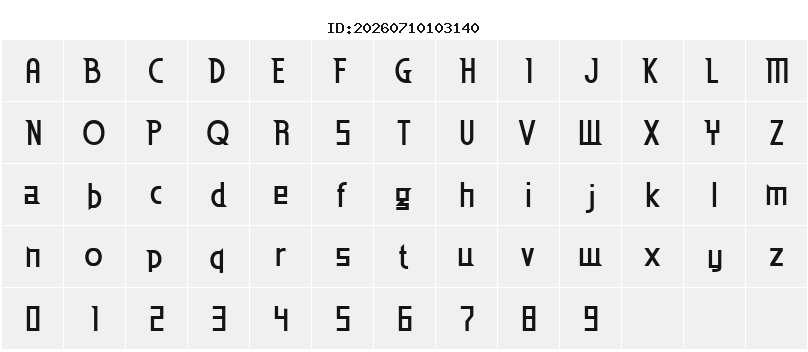
• Font Name: Eden Mills
• Font ID: Eden Mills Bold
• Full Font Name: Eden Mills Bold
• PostScript Name: EdenMillsBold
About Eden Mills.ttf
Eden Mills.ttf is a modern, elegant sans-serif font designed for ultimate readability and visual harmony. Perfect for branding, headlines, web design, and print materials.